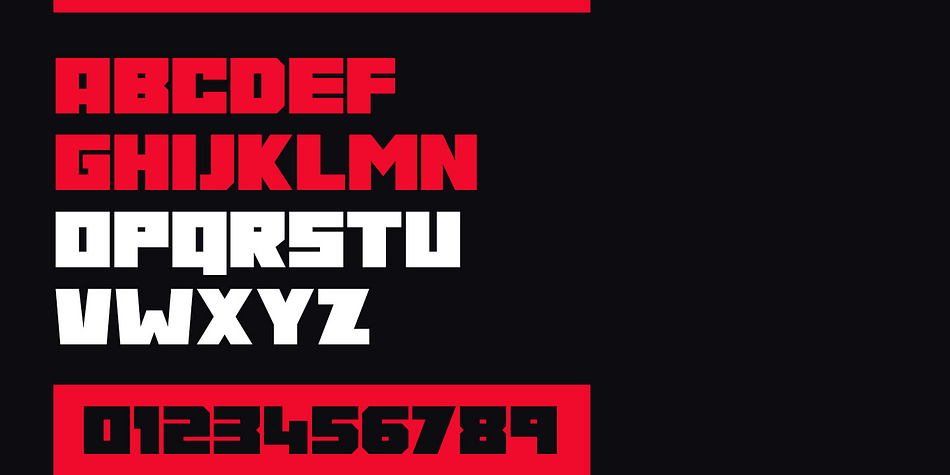
GORE
Gore is a display sans font family. This typeface has two styles and was published by Tugcu Design Co.
Gore is a big & strong display font family that has no curves! It’s great for titles and pairs well with other sans serif and script fonts. Gore features regular and rough versions and includes multilingual uppercase letters, numbers and punctuation.